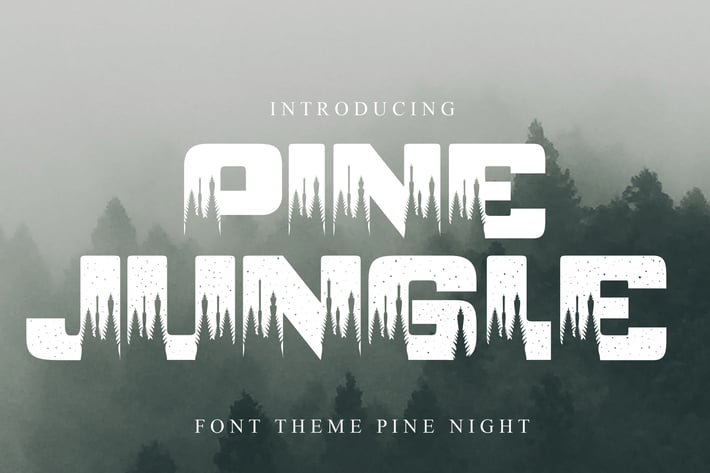
Font Pine jungle
Jehan16
Pine jungle
this is a pine forest theme font where there are stars,
in it to add to the religious impression,
suitable for all types of designs especially those related to nature